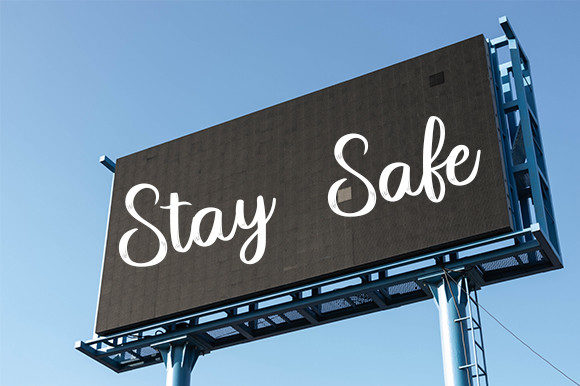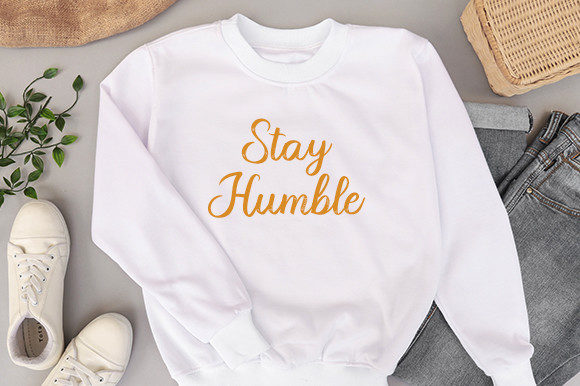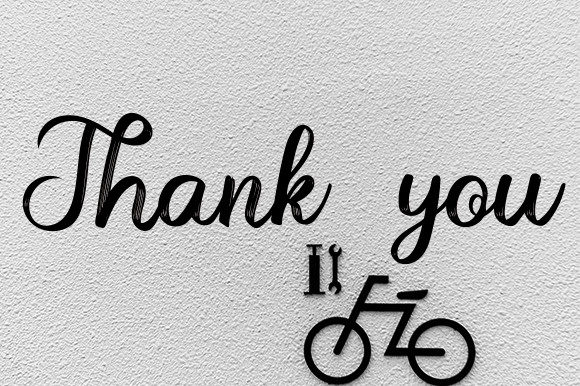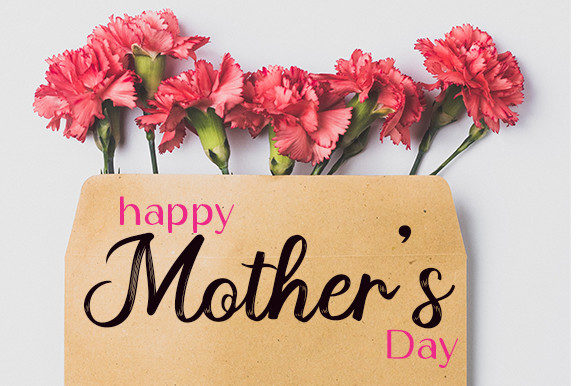
Stella Font
About Stella Font
Stella is a script font created by paying attention to every curve and distance between letters to produce a quality font. It is perfect for projects such as wedding invitations, t-shirt printing, brands, and more.